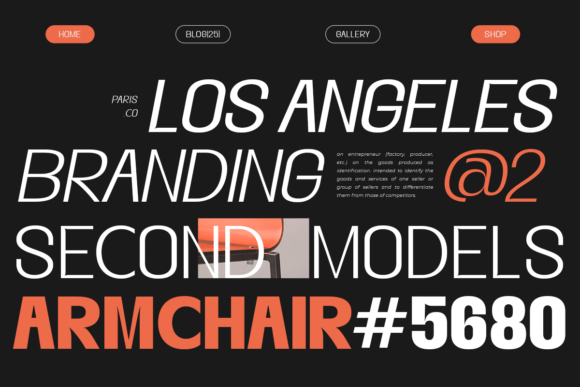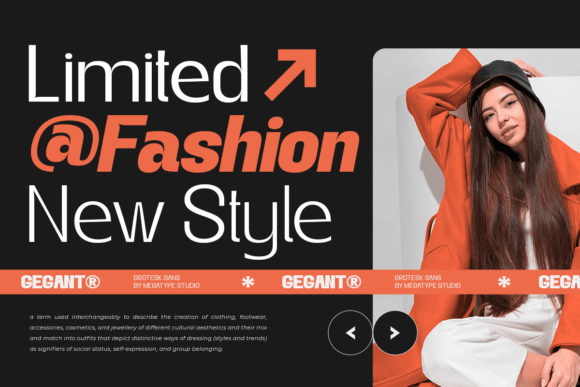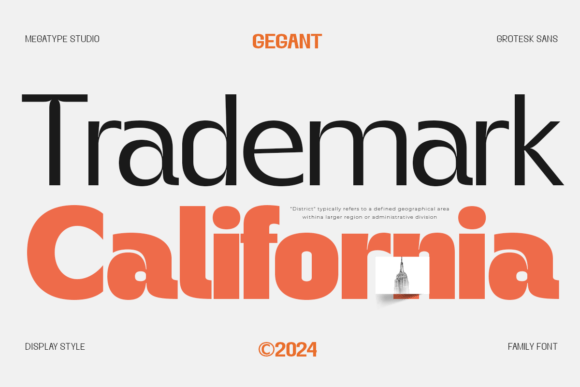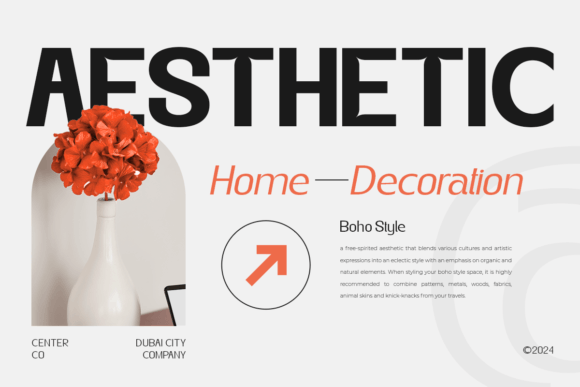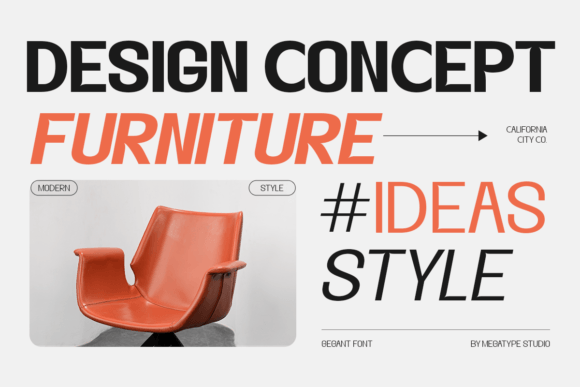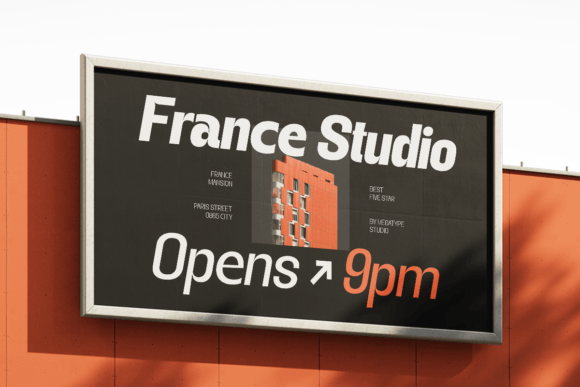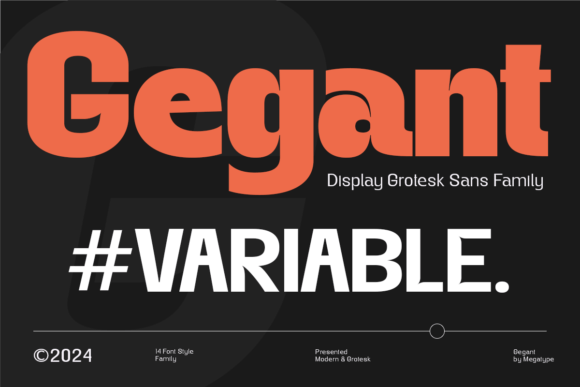
Introducing Gegant Font: The Modern Grotesque Sans Family for Creative Expression
In the world of typography, a good font can make all the difference in creating a lasting impression. For designers and crafters, finding the perfect typeface that combines style, versatility, and uniqueness can be a daunting task. This is where Gegant Font comes in – a modern grotesque sans family designed to elevate your creative projects. In this article, we’ll explore the features, benefits, and uses of Gegant Font, and why it’s becoming a go-to choice for designers and crafters alike.
What is Gegant Font?
Gegant Font is a modern grotesque sans family that consists of seven weights, plus matching italics. Designed with soft curves and simple geometry, Gegant boasts nuances that add warmth to its firm character shapes. This unique blend of modernity and approachability makes Gegant an excellent choice for a wide range of applications, from branding and magazines to posters, advertising, packaging, headlines, logos, web, and print media.
Key Features of Gegant Font
- Seven weights and matching italics: Gegant Font offers a comprehensive range of weights, allowing designers to achieve the perfect level of contrast and hierarchy in their designs.
- Soft curves and simple geometry: The font’s design combines smooth curves with basic geometric shapes, creating a unique and distinctive look.
- Warmth and firmness: Gegant’s character shapes are designed to be firm yet warm, making it perfect for creating visually appealing and engaging designs.
- Versatility: Gegant Font is suitable for a wide range of applications, from digital platforms to print materials.
Benefits of Using Gegant Font
So, why choose Gegant Font for your next design project? Here are just a few benefits:
- Unique and distinctive look: Gegant Font’s modern grotesque design sets it apart from other sans-serif fonts, ensuring your designs stand out from the crowd.
- Improved readability: The font’s clear and simple geometry makes it easy to read, even at small sizes.
- Flexibility: With seven weights and matching italics, Gegant Font offers a high degree of flexibility, allowing designers to experiment with different styles and effects.
- Time-saving: Gegant Font’s versatility and range of weights mean you can use it for multiple projects, saving you time and effort in the long run.
Uses of Gegant Font
Gegant Font is an incredibly versatile typeface that can be used in a wide range of applications, including:
- Branding: Create a lasting impression with Gegant Font’s unique and distinctive look.
- Magazines and newspapers: Use Gegant Font to add a touch of modernity to your publication.
- Posters and advertising: Gegant Font’s bold and eye-catching design makes it perfect for posters, billboards, and adverts.
- Packaging: Add a professional touch to your product packaging with Gegant Font.
- Headlines and titles: Use Gegant Font to create attention-grabbing headlines and titles.
- Logos: Create a memorable logo with Gegant Font’s unique character shapes.
- Web and digital platforms: Gegant Font is optimized for digital use, making it perfect for websites, social media, and more.
- Print media: Use Gegant Font in brochures, flyers, and other print materials to add a touch of sophistication.
| Font Name | Gegant Font |
| Author | Megatype |
In conclusion, Gegant Font is a modern grotesque sans family that offers a unique blend of style, versatility, and uniqueness. With its seven weights, matching italics, and soft curves, Gegant is the perfect choice for designers and crafters looking to elevate their creative projects. Whether you’re working on branding, magazines, posters, advertising, packaging, or digital platforms, Gegant Font is sure to make a lasting impression.